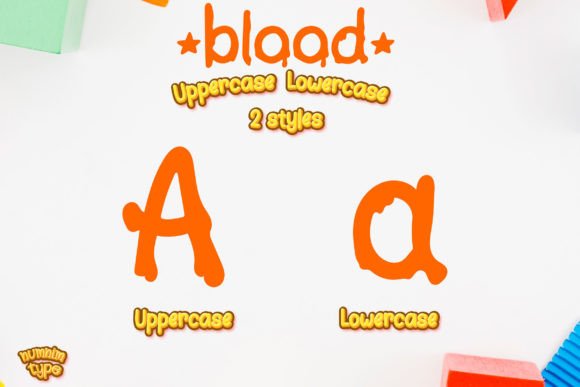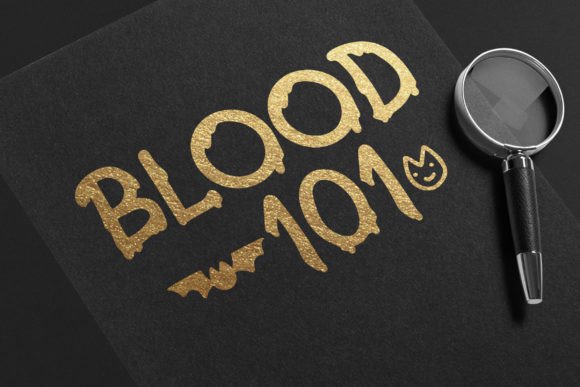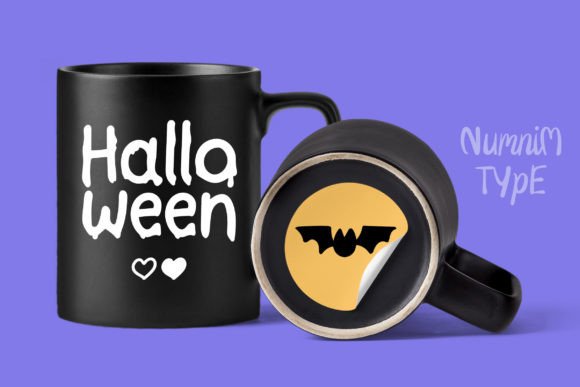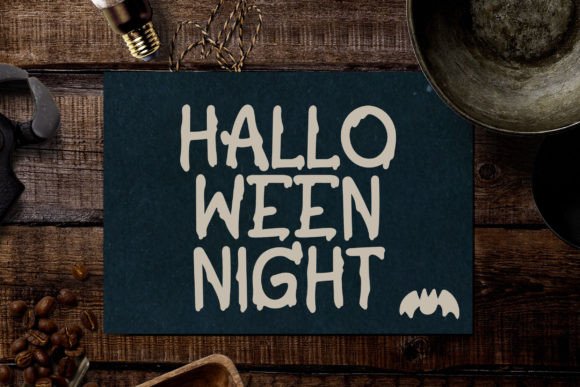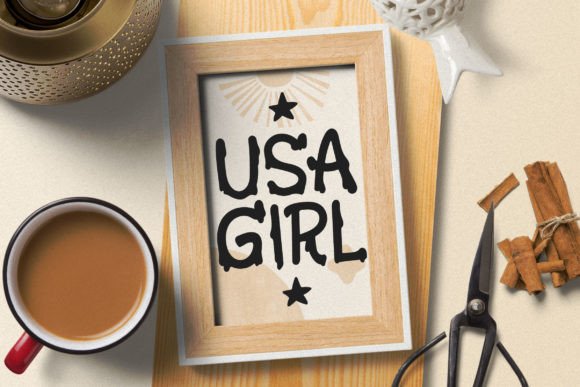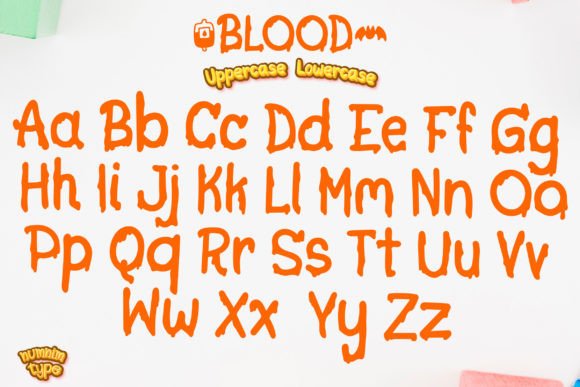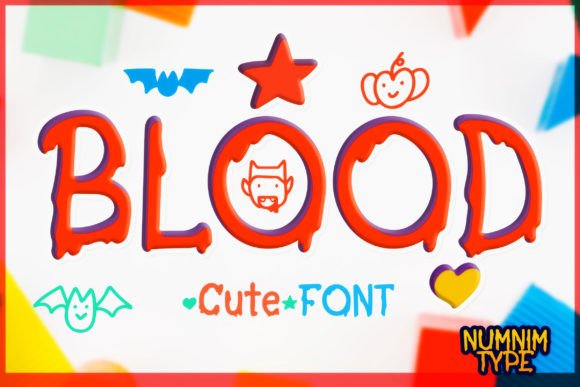
Blood Font: The Ultimate Handwritten Font for Creative Projects
Are you looking for a font that adds a touch of playfulness and whimsy to your designs? Look no further than Blood Font, a cute and uniquely crafted handwritten font that’s perfect for a variety of creative projects. In this article, we’ll explore the features and benefits of Blood Font, and show you how it can elevate your designs to the next level.
What is Blood Font?
Blood Font is a carefully crafted handwritten font that’s designed to bring a smile to your face. Its fun and playful characters make it the perfect choice for a wide range of projects, from stickers and mugs to t-shirts, ornaments, and Halloween event cards. Whether you’re a designer, crafter, or DIY enthusiast, Blood Font is sure to inspire your creativity.
Key Features of Blood Font
- Handwritten Style: Blood Font features a unique handwritten style that’s both playful and charming. Its irregularities and quirks give it a personal touch that’s hard to find in digital fonts.
- Fun and Playful Characters: The font includes a range of fun and playful characters, including letters, numbers, and punctuation marks. These characters are designed to add a touch of whimsy to your designs.
Uses for Blood Font
Blood Font is a versatile font that can be used for a wide range of creative projects, including:
- Stickers: Add a playful touch to your stickers with Blood Font. Its fun and quirky characters are sure to grab attention.
- Mugs: Create custom mugs with Blood Font that’s sure to bring a smile to the face of friends and family.
- T-Shirts: Design eye-catching t-shirts with Blood Font that’s perfect for Halloween events, parties, or everyday wear.
- Ornaments: Add a personal touch to your ornaments with Blood Font that’s perfect for holiday decorations or gifts.
- Halloween Event Cards: Create spooky-ooky Halloween event cards with Blood Font that’s sure to set the tone for a fun and playful celebration.
Benefits of Using Blood Font
So why choose Blood Font for your creative projects? Here are just a few benefits:
- Unique Style: Blood Font features a unique handwritten style that’s sure to stand out from the crowd.